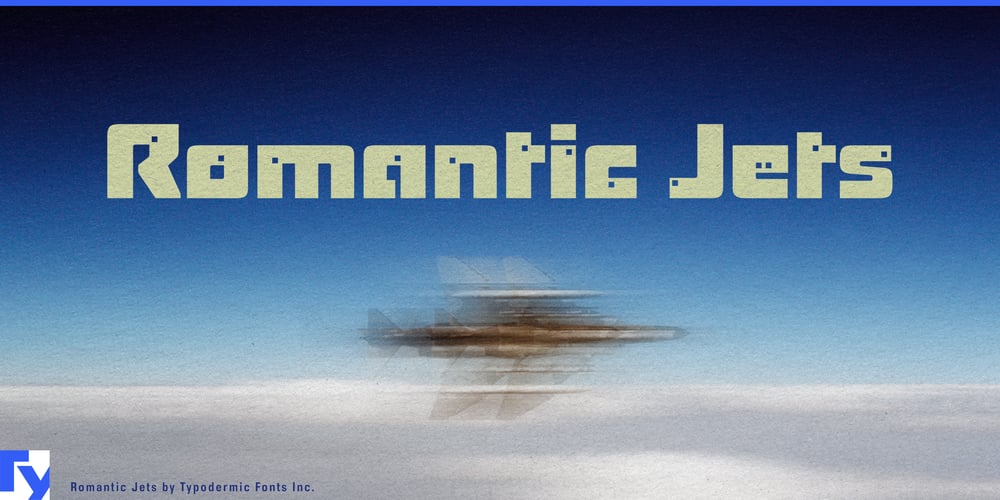
Romantic Jets
Romantic Jets font
Romantic Jets Font Family was designed by Ray Larabie and published by Typodermic. Romantic Jets contains 1 styles and family package options. Fasten your seatbelts and prepare for takeoff with Romantic Jets, a display typeface that soars beyond the boundaries of conventional typography. Inspired by the raw power of jet engines and the unapologetic forms of brutalist architecture, Romantic Jets propels your designs into a realm where industrial edge meets unexpected tenderness.This typeface doesn’t just communicate—it roars. Each character is a masterpiece of visual engineering, balancing sharp angles with strategic negative space to create a mesmerizing interplay of form and void. The result is a typography that cuts through the visual noise like a supersonic aircraft, leaving a trail of awe in its wake. What truly sets Romantic Jets apart are its distinctive index holes—small, precise cutouts that punctuate the bold forms with a touch of whimsy. These unexpected details add a layer of intrigue to your designs, inviting viewers to look closer and discover the subtle romance hidden within the typeface’s brutalist exterior. It’s as if each letter carries a secret love note, waiting to be discovered by the discerning eye.Choose Romantic Jets when your project demands typography that doesn’t just catch the eye—it hijacks it. Its unique blend of industrial might and subtle charm makes it the ideal choice for brands and projects that aim to challenge perceptions and ignite emotions. Whether you’re designing a cutting-edge fashion campaign, crafting the identity for an avant-garde art gallery, or creating signage for a modernist architectural marvel, Romantic Jets provides the typographic thrust to launch your ideas into the stratosphere. Romantic Jets’ linguistic capabilities match its visual audacity. Supporting an extensive range of Latin-based European writing systems, it ensures your message maintains its impact across borders and cultures. From the fjords of Norway to the sun-drenched coasts of Portugal, Romantic Jets speaks the universal language of bold, emotive design.In a world saturated with the expected, Romantic Jets offers a thrilling alternative. Embark on a typographic journey with Romantic Jets—where every letter is a destination, and every design is an adventure in the unexpected.